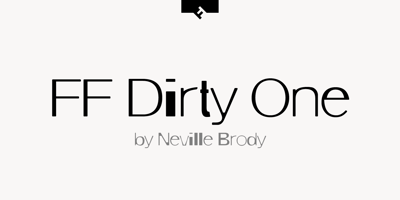
FF Dirty One Font Family was designed by Neville Brody and published by FontFont. FF Dirty One contains 2 styles and family package options. British type designer Neville Brody created this display FontFont in 1994. The family contains 2 weights: Regular and Bold and is ideally suited for advertising and packaging, music and nightlife as well as poster and billboards. FF Dirty One provides advanced typographical support with features such as ligatures, alternate characters, and case-sensitive forms. It comes with tabular oldstyle and tabular lining figures. This FontFont is a member of the FF Dirty super family, which also includes FF Dirty Four, FF Dirty Seven, FF Dirty Six, and FF Dirty Three.